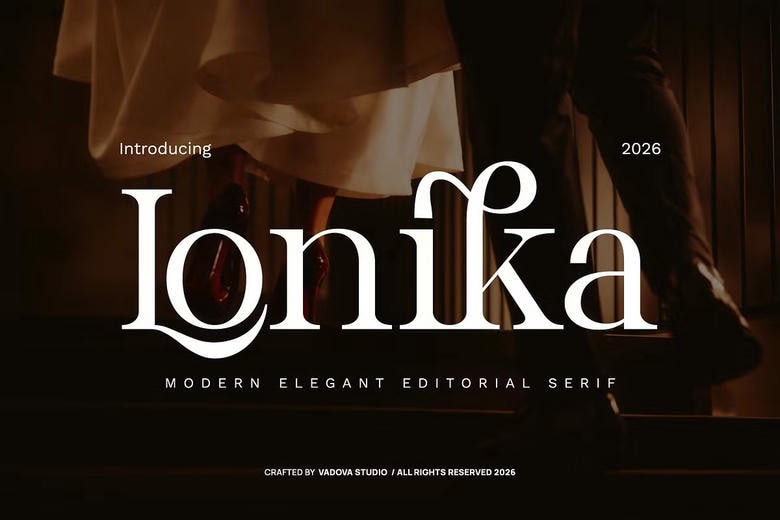
Lonika Font
Lonika is an elegant contemporary editorial serif typeface, which is intended to add refinement, sophistication, and readability to modern typography. Lonika provides a luxurious and polished appearance with its elegant curves, high contrast strokes, and well-designedligatures to use in high-end design work. The typeface is a combination of old serif traditions and modern editorial styling, and it is ideal in the layout of magazines, fashion branding, luxury packaging, and high-end visual identities.
Lonika will best suit work that demands a polished typography and sophisticated look. Their contemporary writing style is ideal to fashion magazines, brand lux, packaging, logo design, editorial pages, beauty brands, advertisement campaigns, and high-end visual identities.